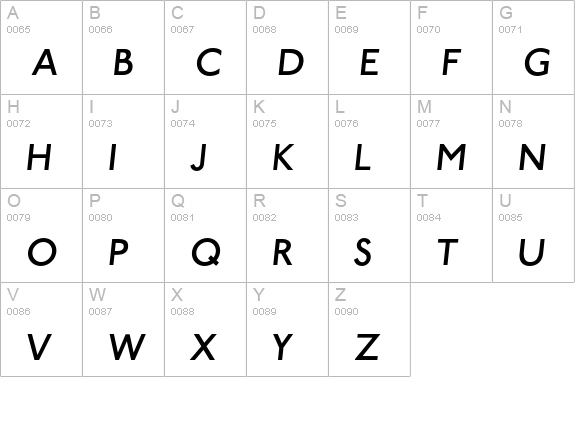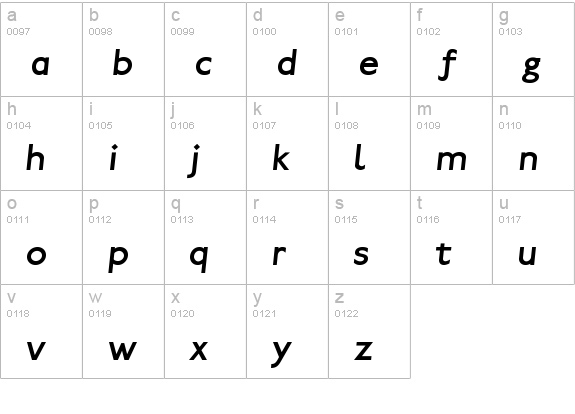
Paddington Italic is a distinctive, italic variant in the Paddington typeface family \xE2\x80\x94 well suited to design and typography projects.
Introducing Paddington Italic, a beautifully crafted font that effortlessly combines elegance with a touch of playfulness. With its slanted and stylish letterforms, this typeface brings a unique charm to any project it graces. Inspired by the beloved character Paddington Bear, this font captures the essence of adventure, curiosity, and a warm-hearted spirit. Its smooth curves and delicate strokes create a sense of movement, making it perfect for conveying both sophistication and a hint of whimsy. Paddington Italic is versatile and adaptable, making it suitable for a wide range of design projects. From invitations and greeting cards to branding materials and social media graphics, this font adds a touch of personality and character to any composition. One of the greatest features of Paddington Italic is that it is available for free! Yes, you heard it right. You can freely download this font at FontsMarket.com, ensuring that creativity knows no bounds. With its generous availability, designers and enthusiasts alike can bring their ideas to life without any restrictions. So why wait? Embrace the charm of Paddington Italic and let your imagination run wild. Download it now and let this font become an integral part of your creative journey.